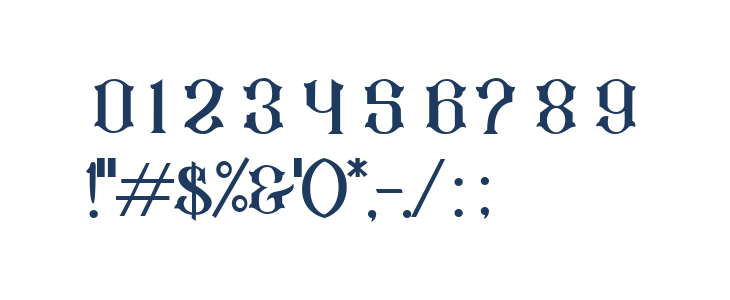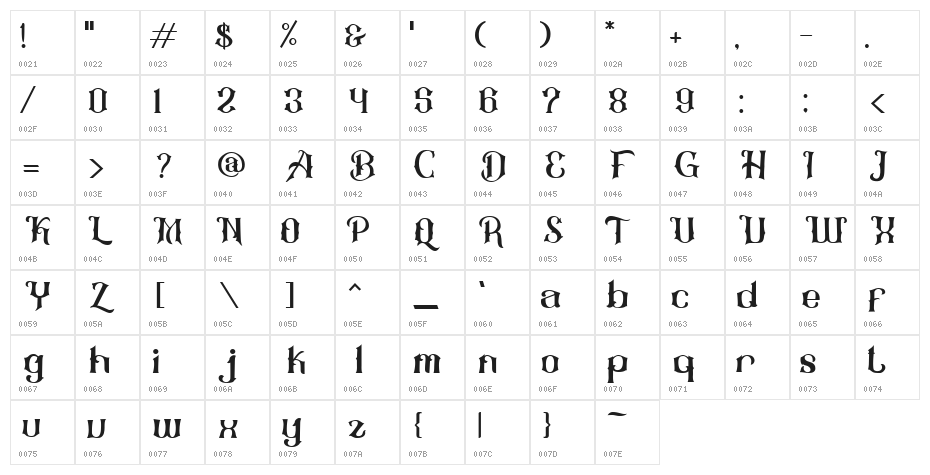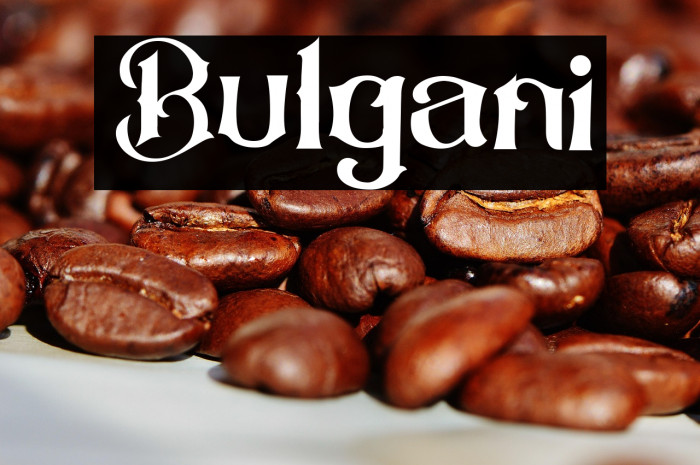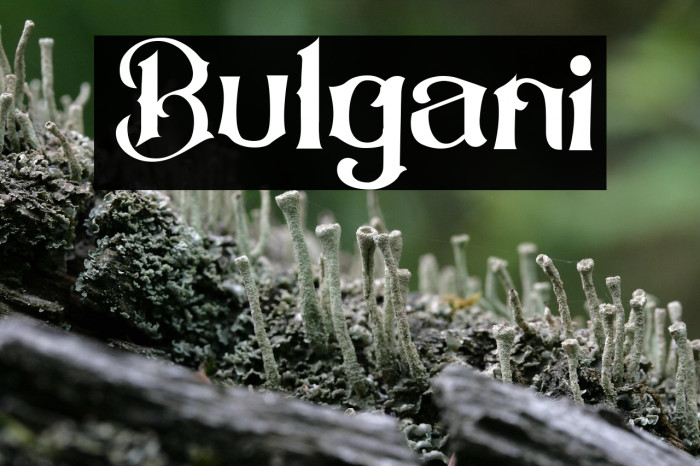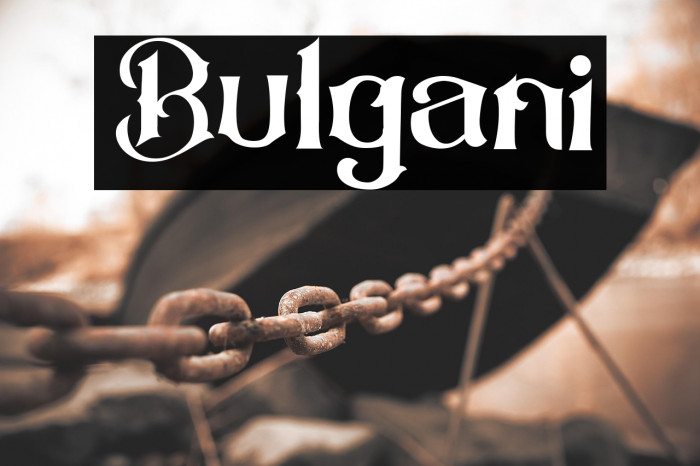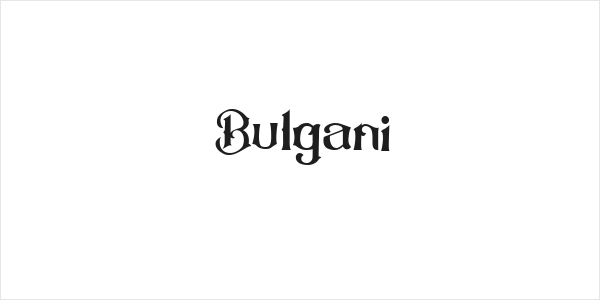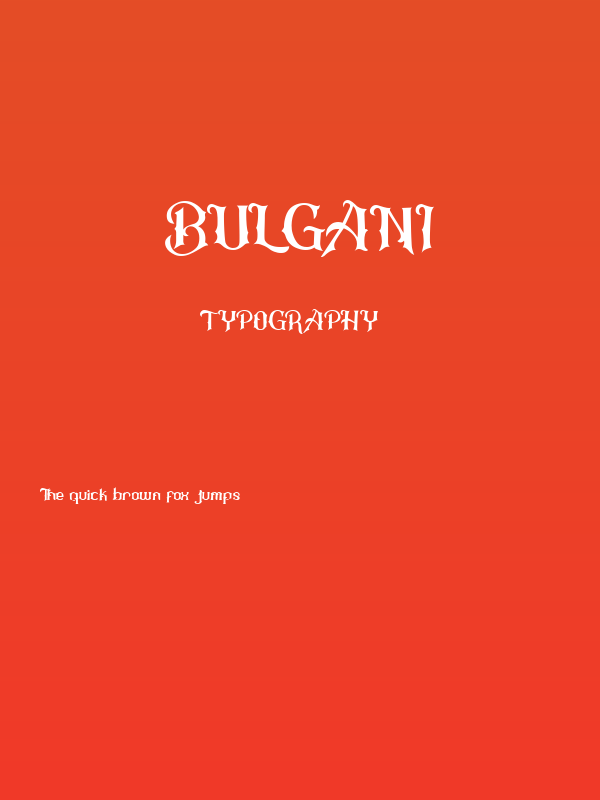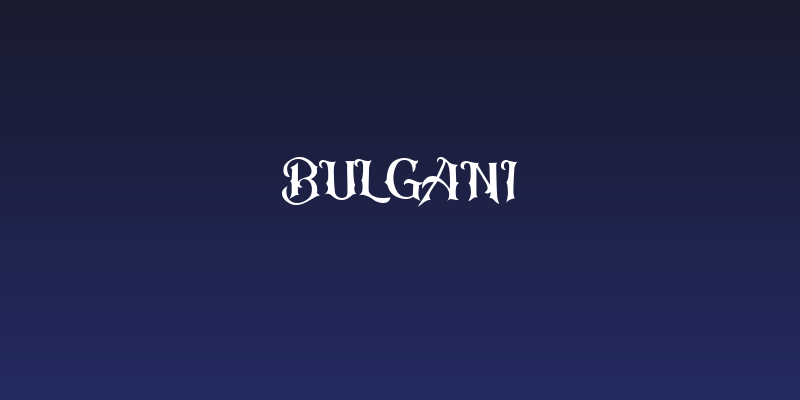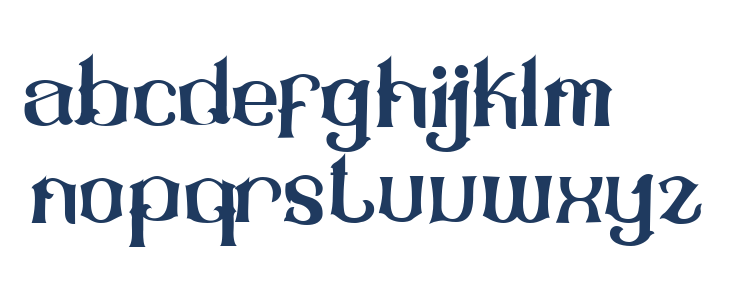
Bulgani Font
Bulgani Description
This font features a bold and dramatic style with a strong blackletter influence, characterized by sharp, angular lines and intricate details. The uppercase letters exhibit a gothic flair with pointed serifs and elaborate strokes, while the lowercase letters maintain a consistent style with slightly softer curves. The numerals and special characters are designed to match the overall aesthetic, ensuring a cohesive look. This font's unique design makes it stand out, offering a sense of tradition and authority, yet with a modern twist.